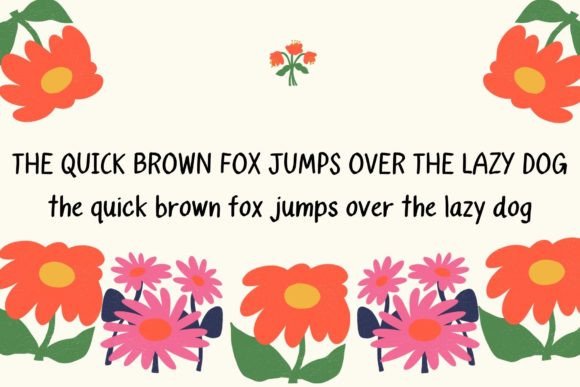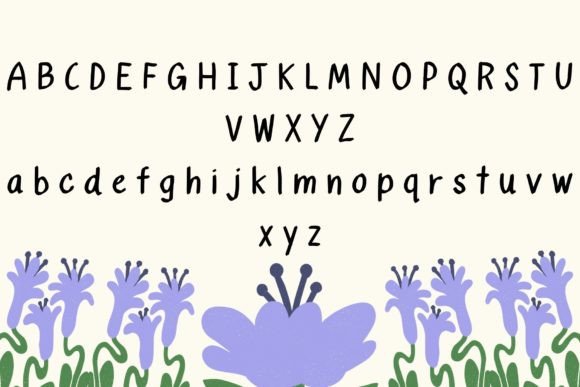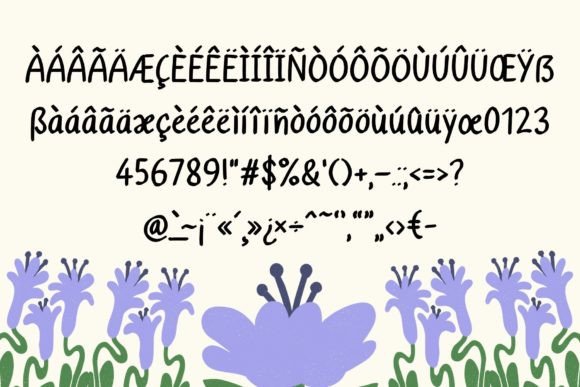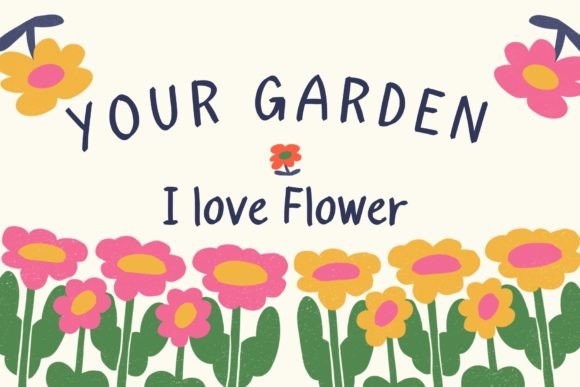
The Bonnie Font: A Playful and Cute Handwritten Delight
An Honest Review of BONNIE
As a designer, I’m always on the lookout for fonts that are not only visually appealing but also versatile and easy to work with. Here’s my honest review of the BONNIE font:
- ✨ Cute and Playful: BONNIE has a charming, handwritten feel that’s perfect for creating fun and engaging designs.
- ✅ Versatile: This sans-serif font can be used for a wide range of projects, from invitations and cards to logos and more.
- 💡 Easy to Read: Despite its playful nature, BONNIE is surprisingly easy to read, even at smaller font sizes.
While BONNIE is an amazing font, there are a few things to keep in mind:
- 🤔 Limited Formality: As a playful font, BONNIE might not be the best choice for very formal or corporate designs.
- ⚠️ Glyph Limitations: While BONNIE has a range of glyphs and alternates, it might not have every special character or symbol you need.
The Designer Inspiration Behind BONNIE
While I couldn’t find a direct statement from the designer, it’s clear that BONNIE was created with the intention of bringing a little joy and whimsy to design projects. The font’s playful, handwritten feel makes it perfect for designers who want to add a personal touch to their work.
Q: What type of projects is BONNIE best suited for?
A: BONNIE is perfect for fun and creative projects like invitations, cards, logos, and more.
Q: Does BONNIE have a wide range of glyphs and alternates?
A: While BONNIE has a range of glyphs and alternates, it might not have every special character or symbol you need.